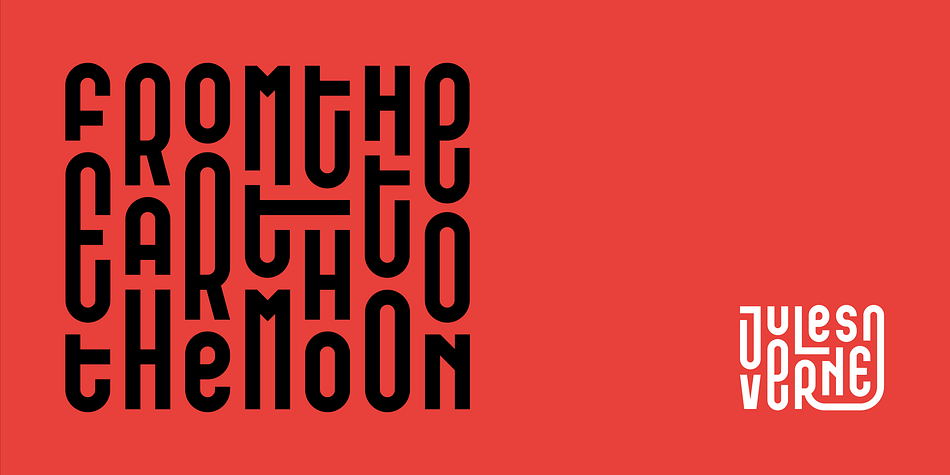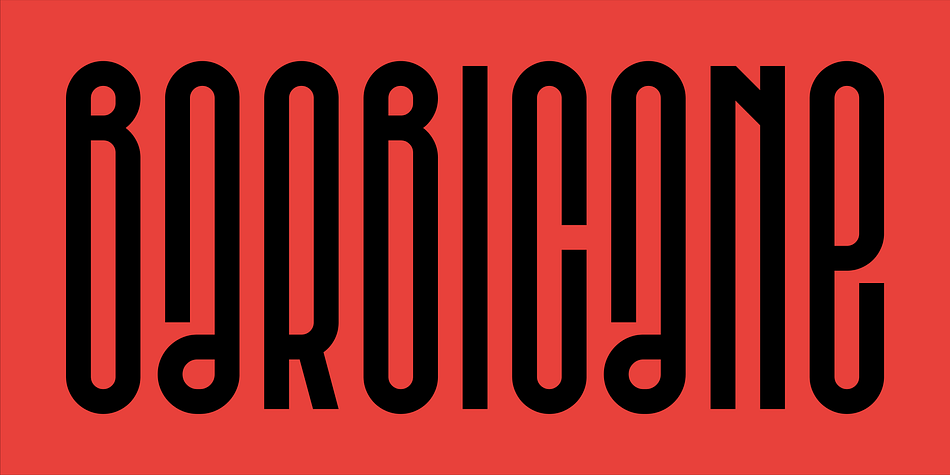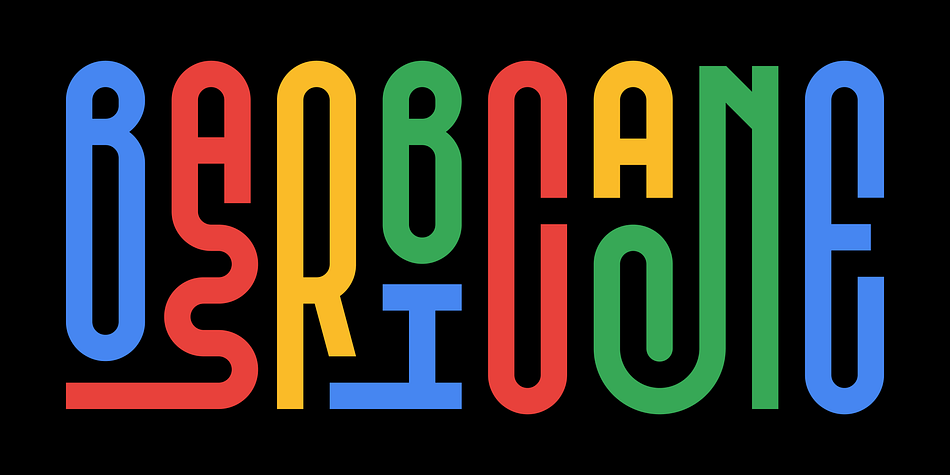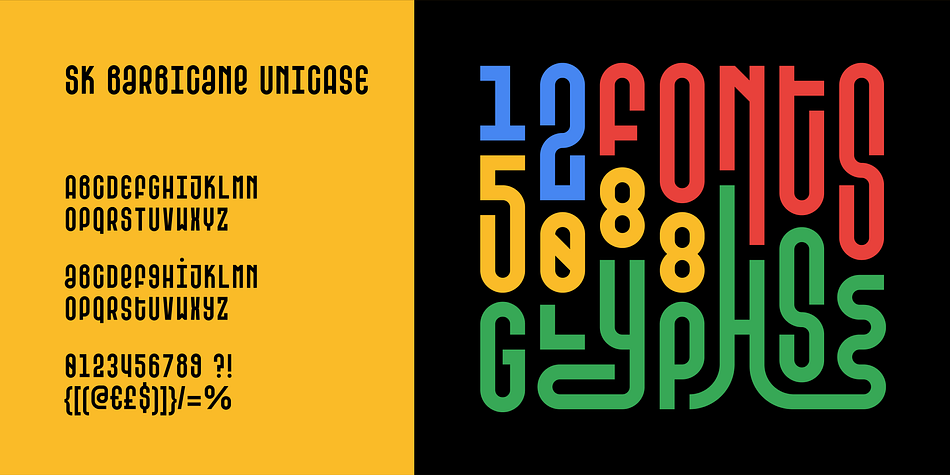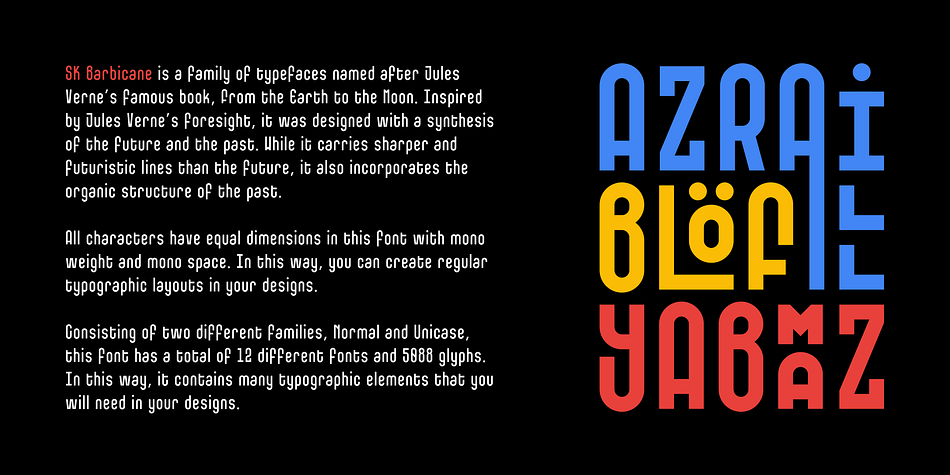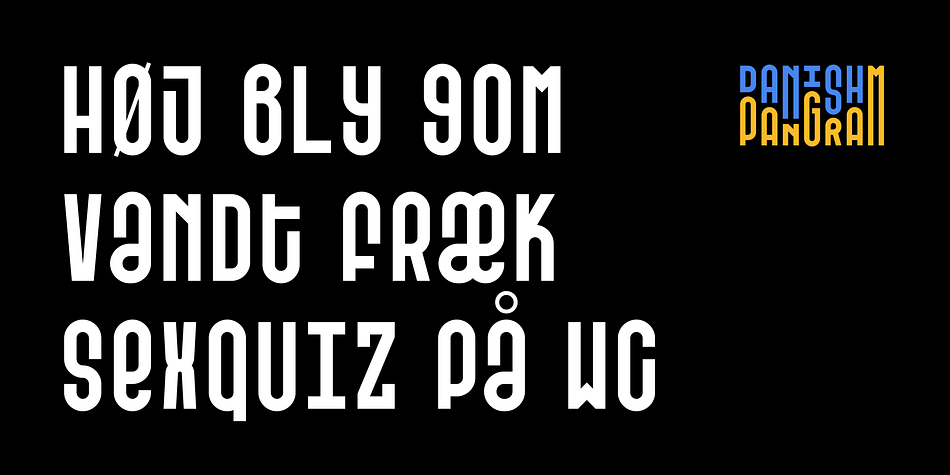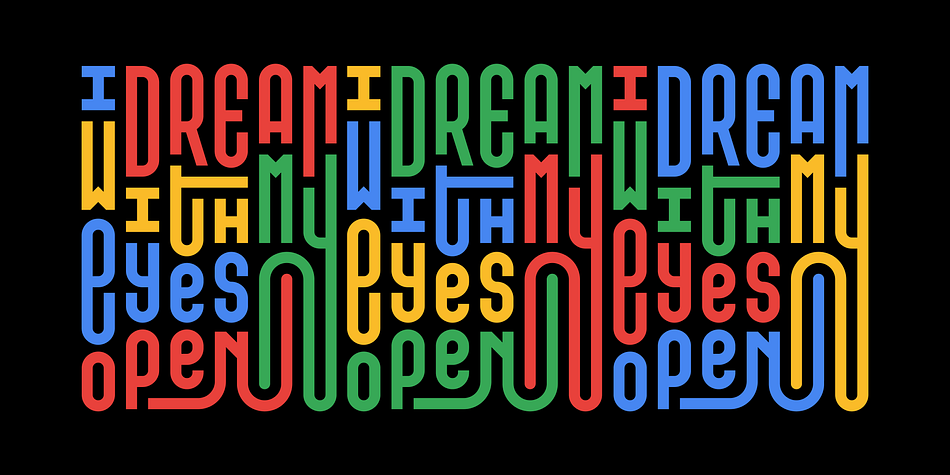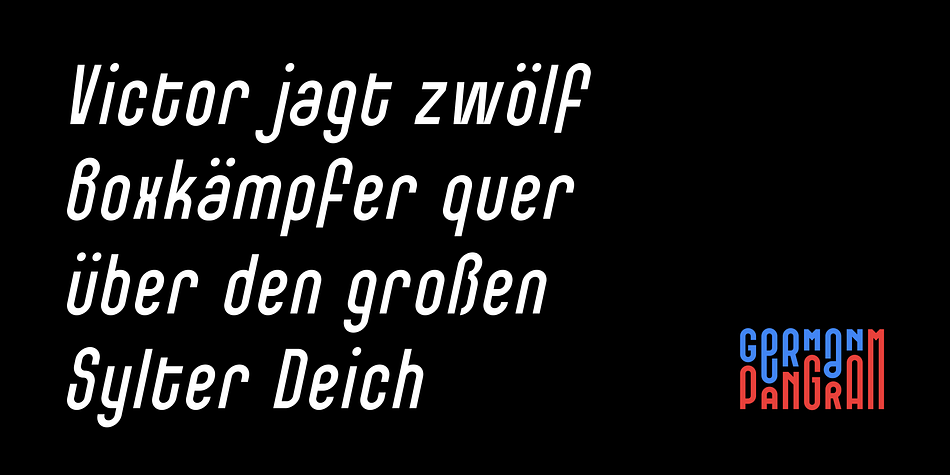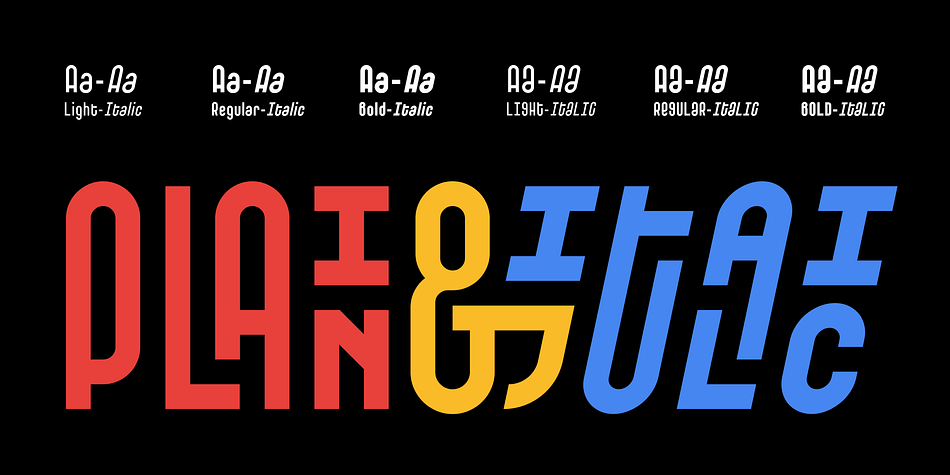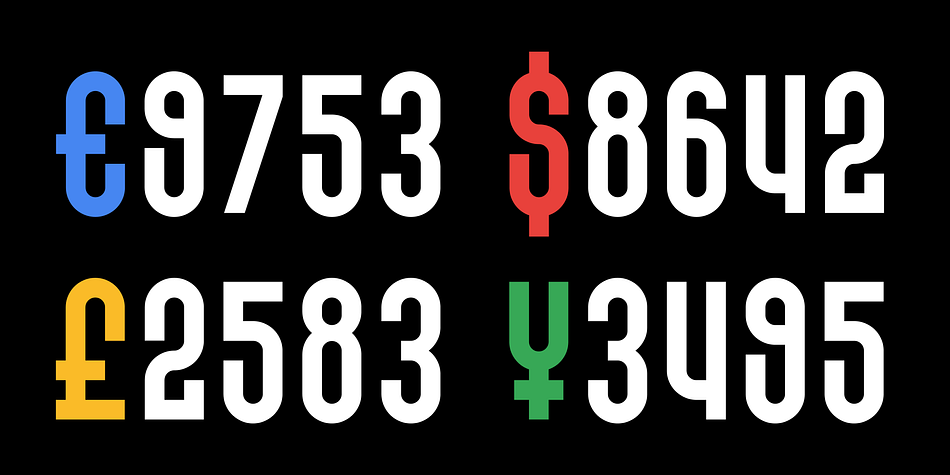
Designed by Salih Kizilkaya, SK Barbicane is a display sans font family. This typeface has twelve styles and was published by Salih Kizilkaya.
SK Barbicane is a family of typefaces named after Jules Verne’s famous book, From the Earth to the Moon. Inspired by Jules Verne’s foresight, it was designed with a synthesis of the future and the past. While it carries sharper and futuristic lines than the future, it also incorporates the organic structure of the past.
All characters have equal dimensions in this font with mono weight and mono space. In this way, you can create regular typographic layouts in your designs. Consisting of two different families, Normal and Unicase, this font has a total of 12 different fonts and 5088 glyphs. In this way, it contains many typographic elements that you will need in your designs.